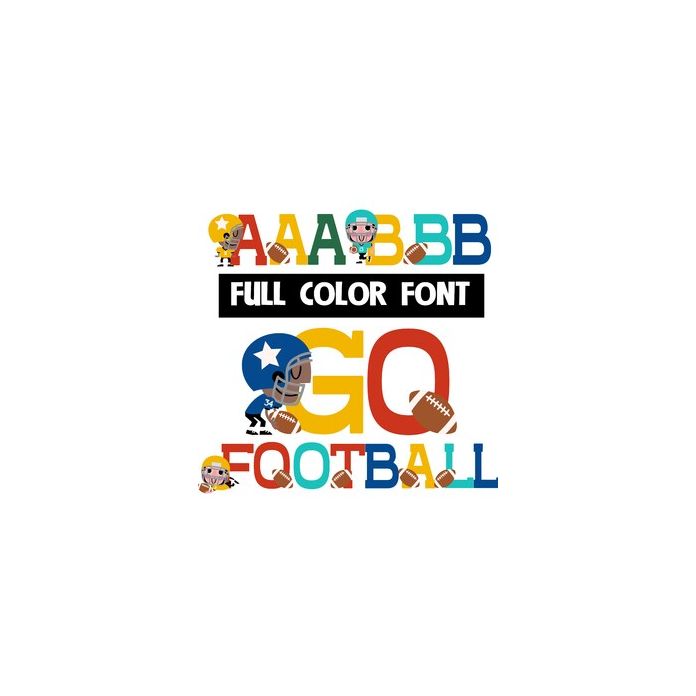
Go Football Color Font
This full-color font features football players, coaches, and referees on the uppercase and a lowercase with just the balls. An alt lowercase is available through Silhouette's glyph map of just plain lettering. This font works best for titles, displays, posters and more. Please note color fonts will show as black in non compatible programs. This font type is compatible with Silhouette Studio.